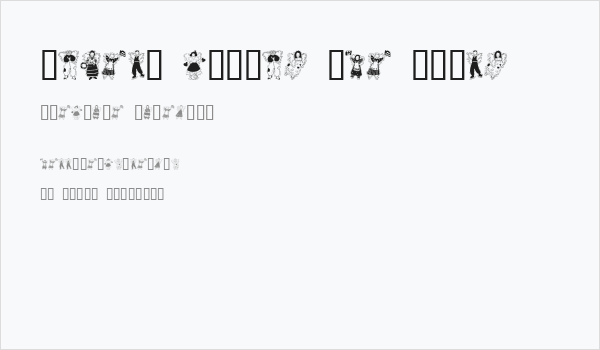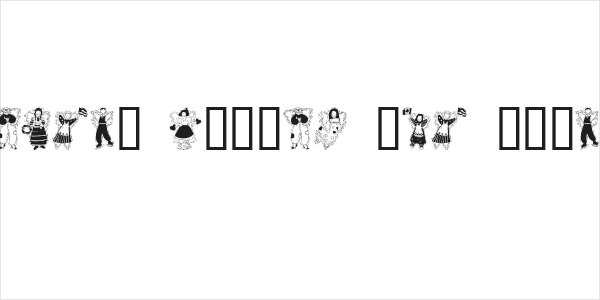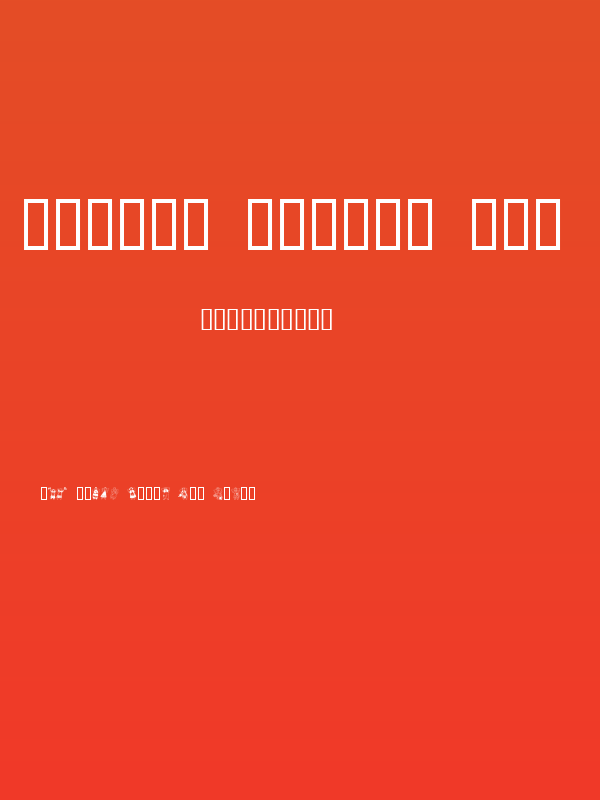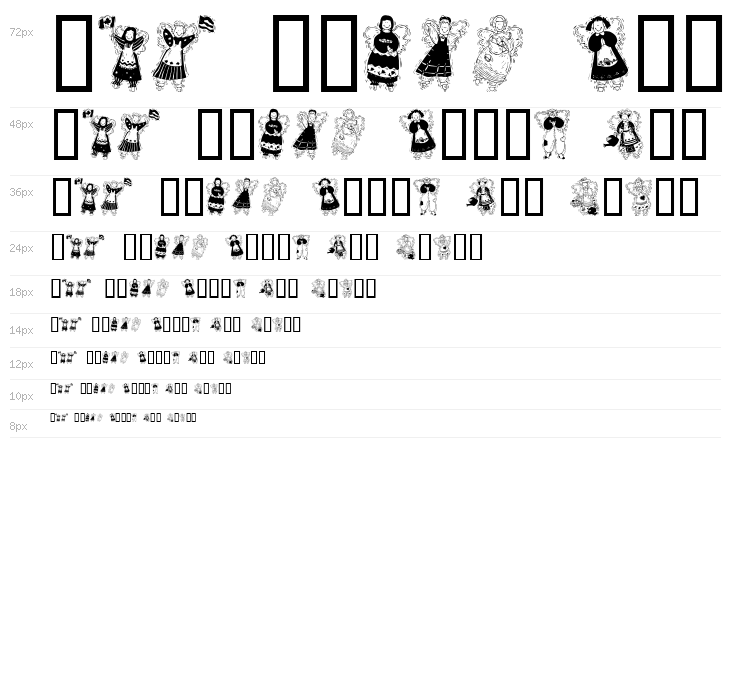
Angels around the world Font
Angels around the world Description
A decorative display set featuring whimsical illustrations of angels dressed in various traditional costumes from around the world, each character unique and detailed, with no standard letterforms present.
| Overall Style | Decorative, Whimsical, Thematic |
| Use Case | Decorative illustrations, not suitable for text. |
| Proposed Projects | Greeting cards, children's books, themed posters, decorative crafts. |